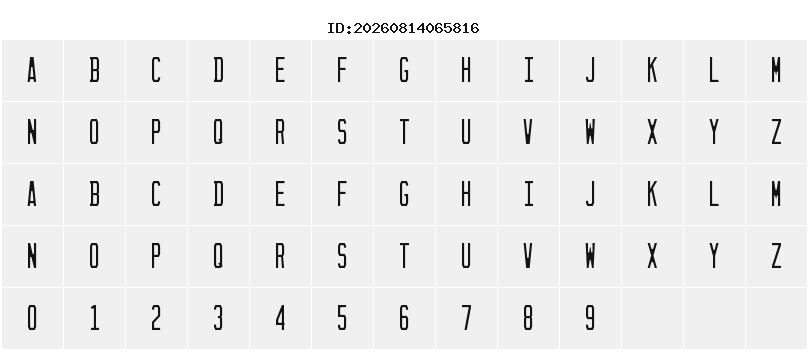
Sunshine State Preview
• Font Name: Sunshine State
• Designer: Steve Ferrera
About Sunshine State.ttf
Sunshine State.ttf is a modern, elegant sans-serif font designed for ultimate readability and visual harmony. Perfect for branding, headlines, web design, and print materials.